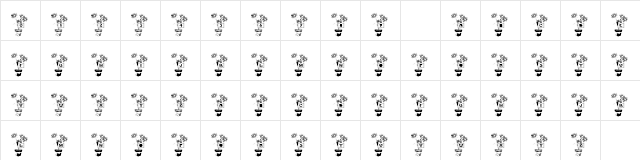
101! Pot O' Daisies Regular
Design Context for 101! Pot O' Daisies Typeface
101! Pot O' Daisies is a composed and adaptable typeface that performs quietly and consistently across a wide range of design contexts.